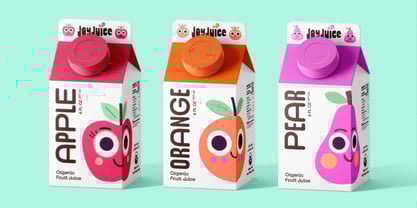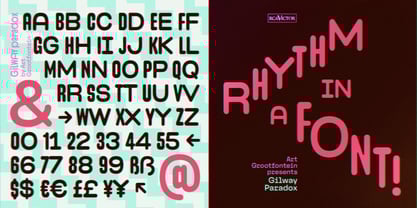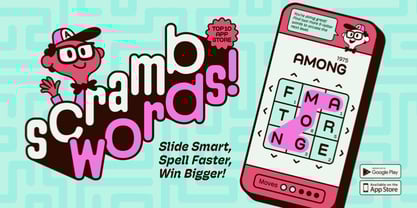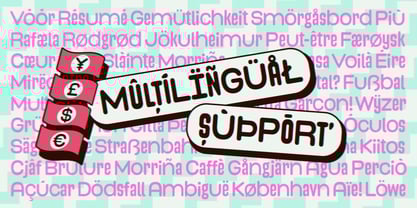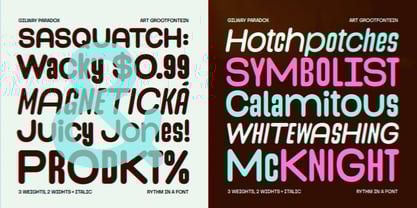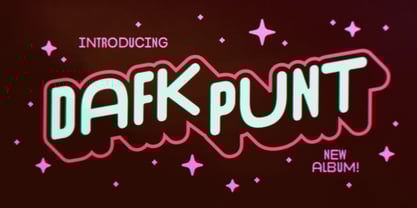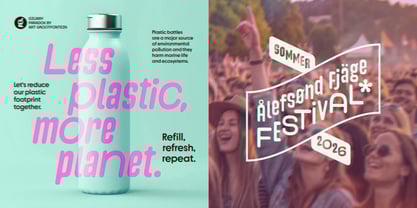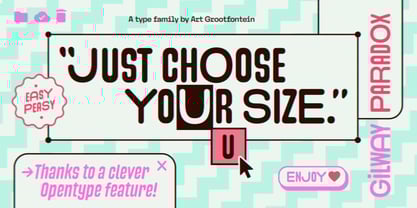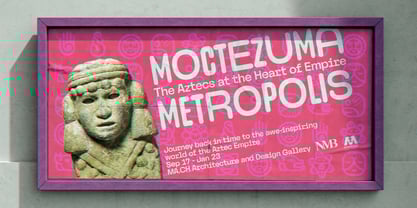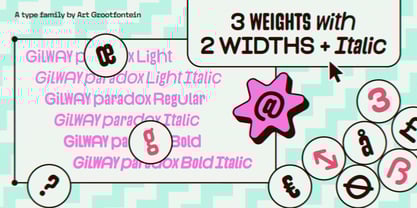
Gilway Paradox
by Art Grootfontein
Gilway Paradox: Experience the Rhythm of a Unique Dual-Width Font!
Meet Gilway Paradox—a versatile, rounded typeface where warmth meets motion. With its striking dual-width characters, this font creates an irresistible visual rhythm, adding dynamic energy to any design. Seamlessly toggle between widths with a single click using OpenType, unlocking endless creative possibilities.
Designed for Impact
• Three weights + italics: Light, Regular, and Bold. Each with a playful yet polished tone.
• Unmatched versatility: Perfect for branding, editorial layouts, packaging, and fashion/beauty aesthetics.
• Global reach: Supports 30+ languages, including major European tongues and Afrikaans, Swahili, Filipino, and Zulu.